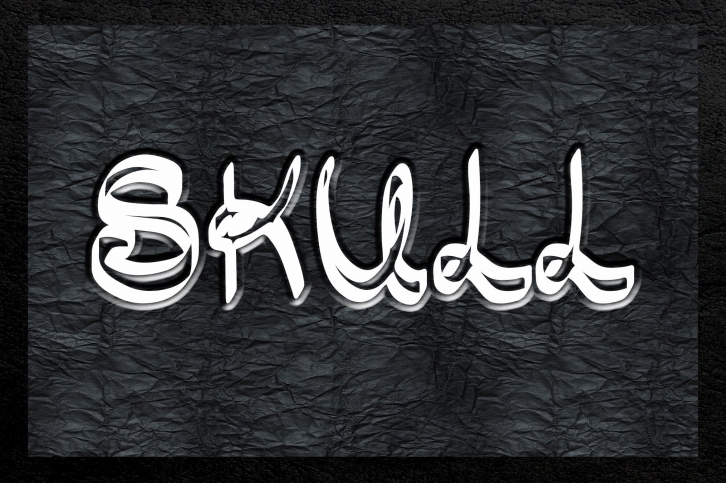
Skull is a cute and chic handwritten font. This adaptable font will look great on a variety of design ideas. It will add a fun and friendly touch to each of your projects!